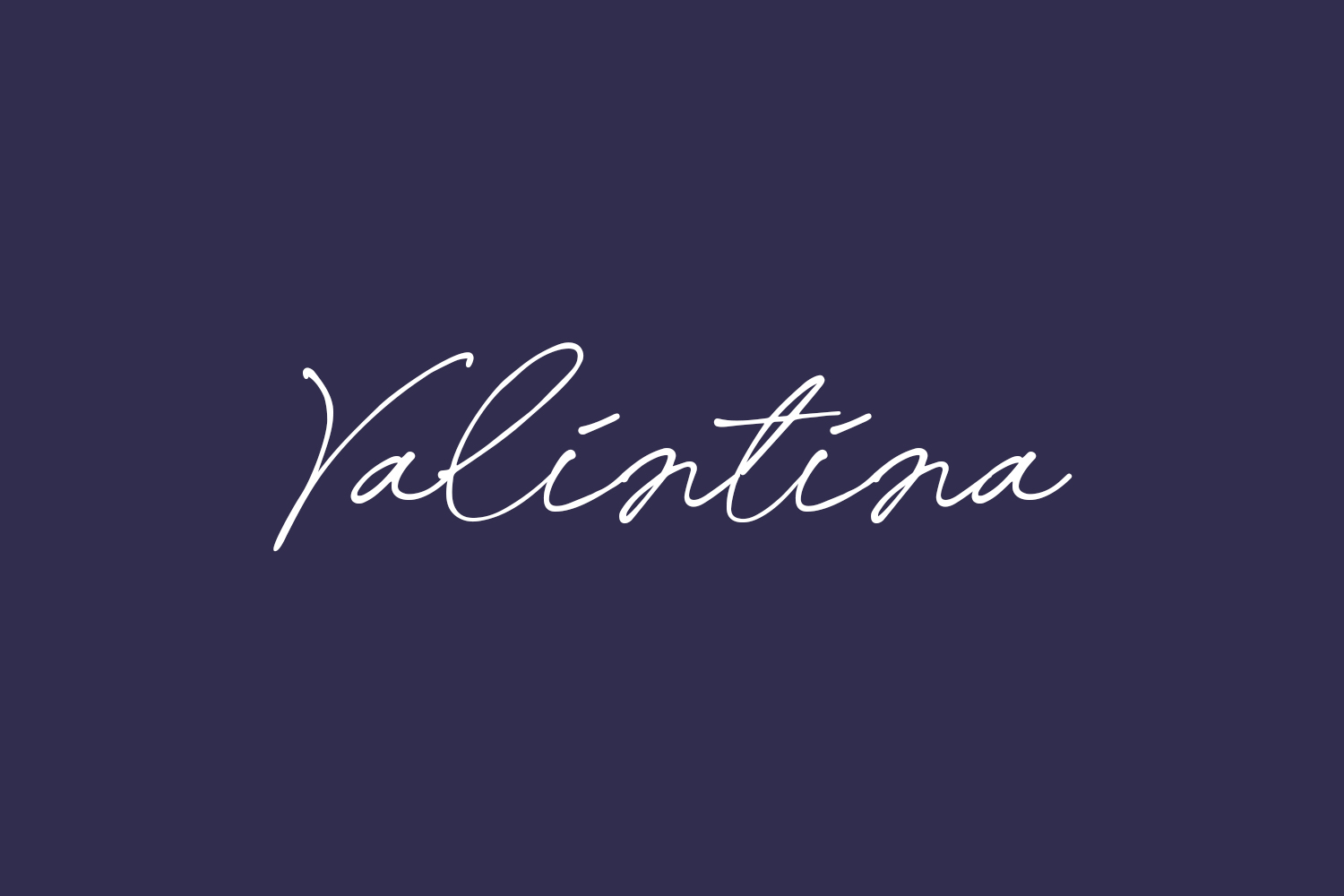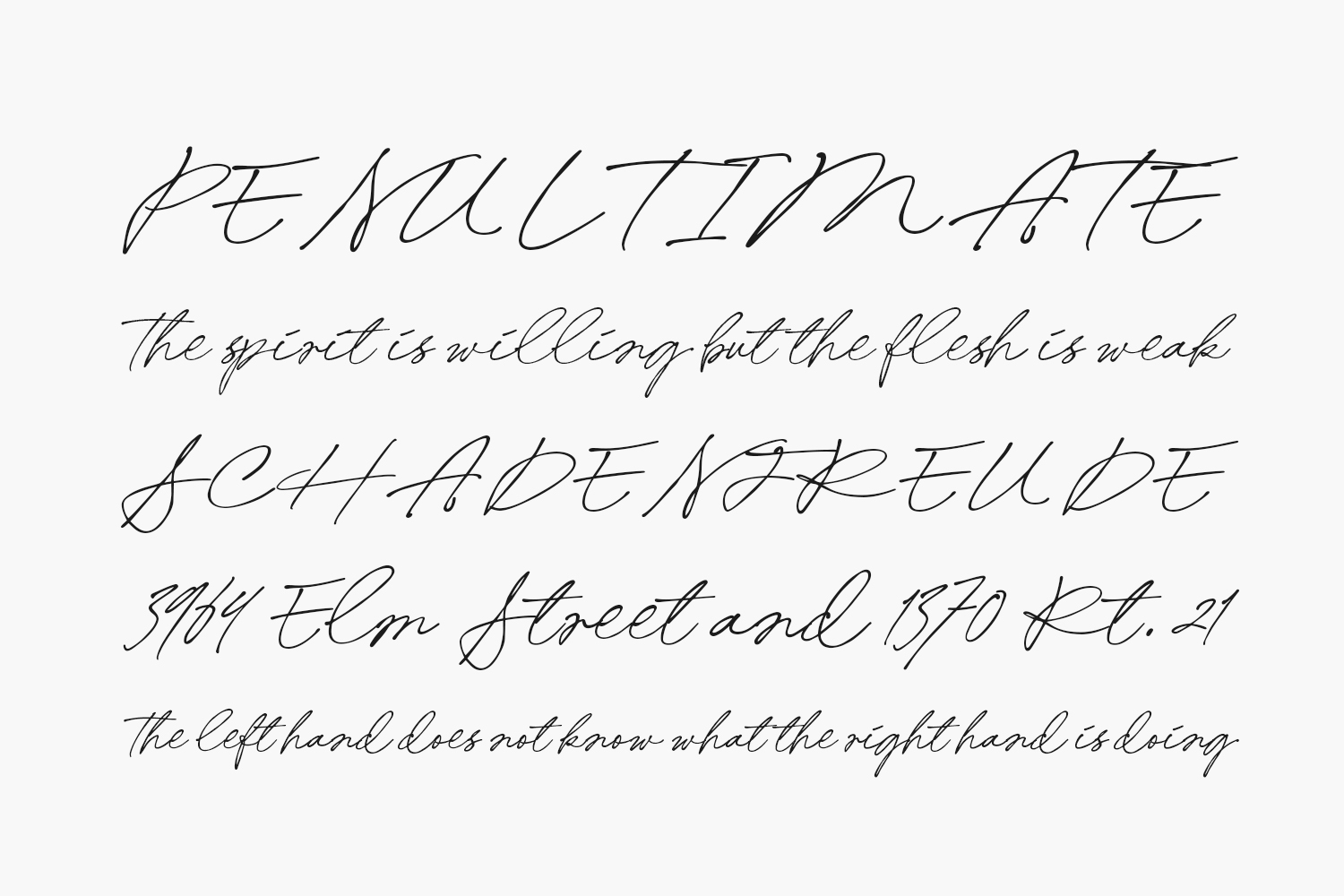
Valintina Free Font is a meticulously crafted script font inspired by elegant handwriting. With its charming stylistic alternates, seamless ligatures, and delicate strokes, Valintina Signature authentically mimics the nuances of real handwriting. Ideal for logos, invitations, magazines, books, greeting cards, packaging, fashion, makeup, stationery, novels, labels, and all your advertising needs. Download the font for free if you need it for personal use or purchase the full version for commercial use.
Designed by Letterhend Studio